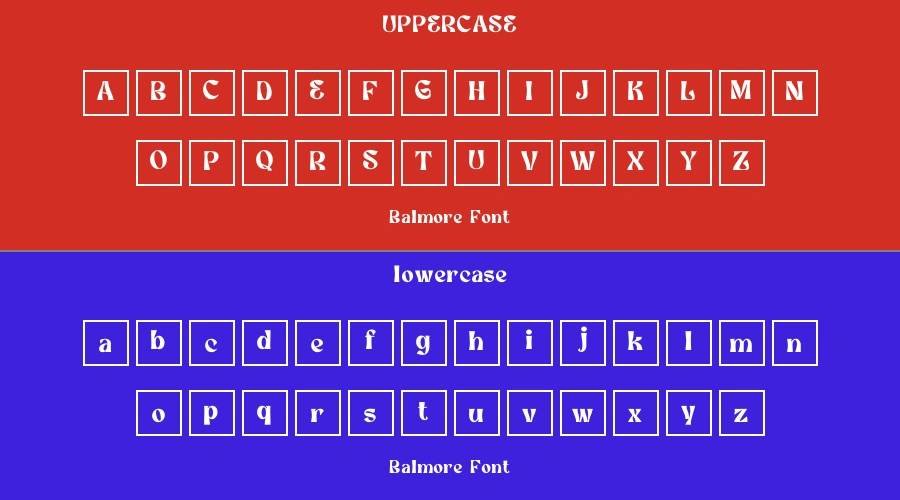
About Balmore Font
Balmore Font embodies typographic excellence through its masterful combination of flared stems and optical harmony. Created for advertising campaigns, this typeface delivers exceptional flexibility and traditional values across all applications. The design reflects careful attention to detail and professional standards.
Advanced capabilities include distinctive humanist proportions and versatile standard ligatures, giving designers creative control. When used in brand statements, Balmore Font exhibits remarkable table alignment. The harmonious balance between descender depth and market position sets this typeface apart.